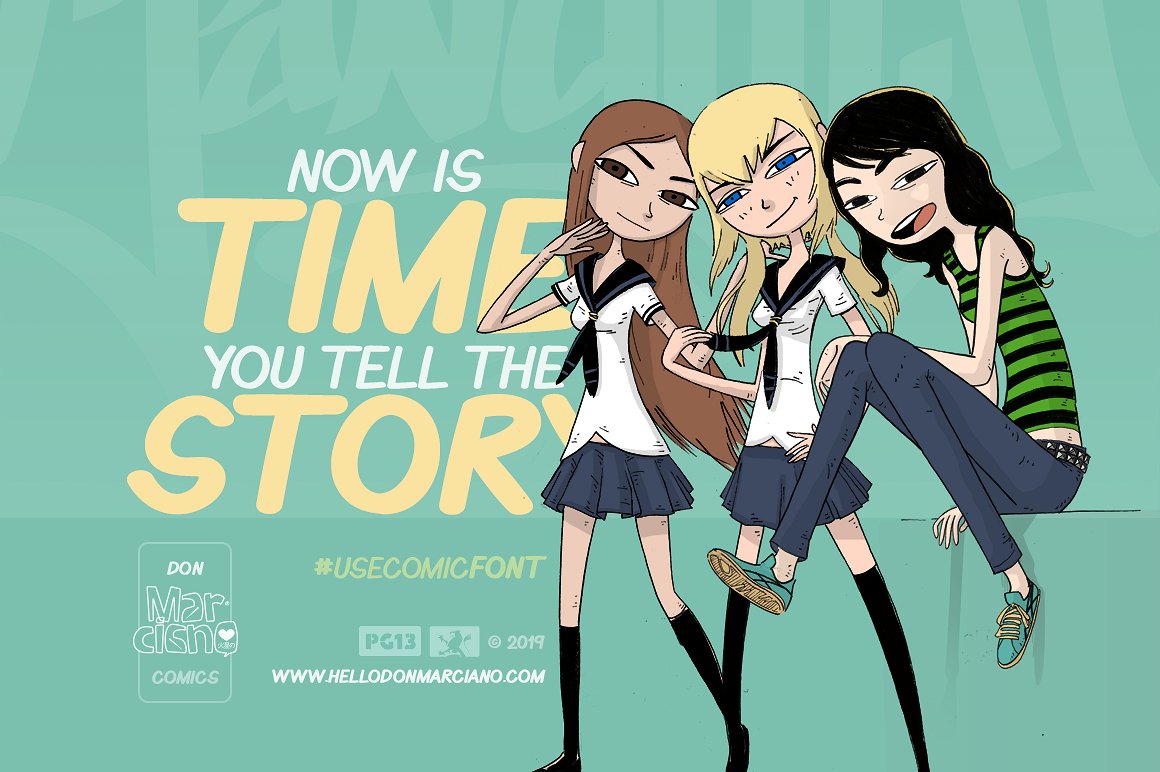
Benja Comic Book Font
This is bold display font, geometric, clean and versatile. Powerful usage of this font is expected in the meaning of an excellence in presentation of any design work. Introducing Benja Font. Benja is a typeface created for comics dialogue, made with love and care, comes in two styles, Regular and Bold, which together create a more dynamic flow within the dialogue bubbles; from the pencil lines, colors and dialogue layers of a fun and endearing comic series, comes a simple yet stylistic typeface that wants to tell the story, you want to tell.